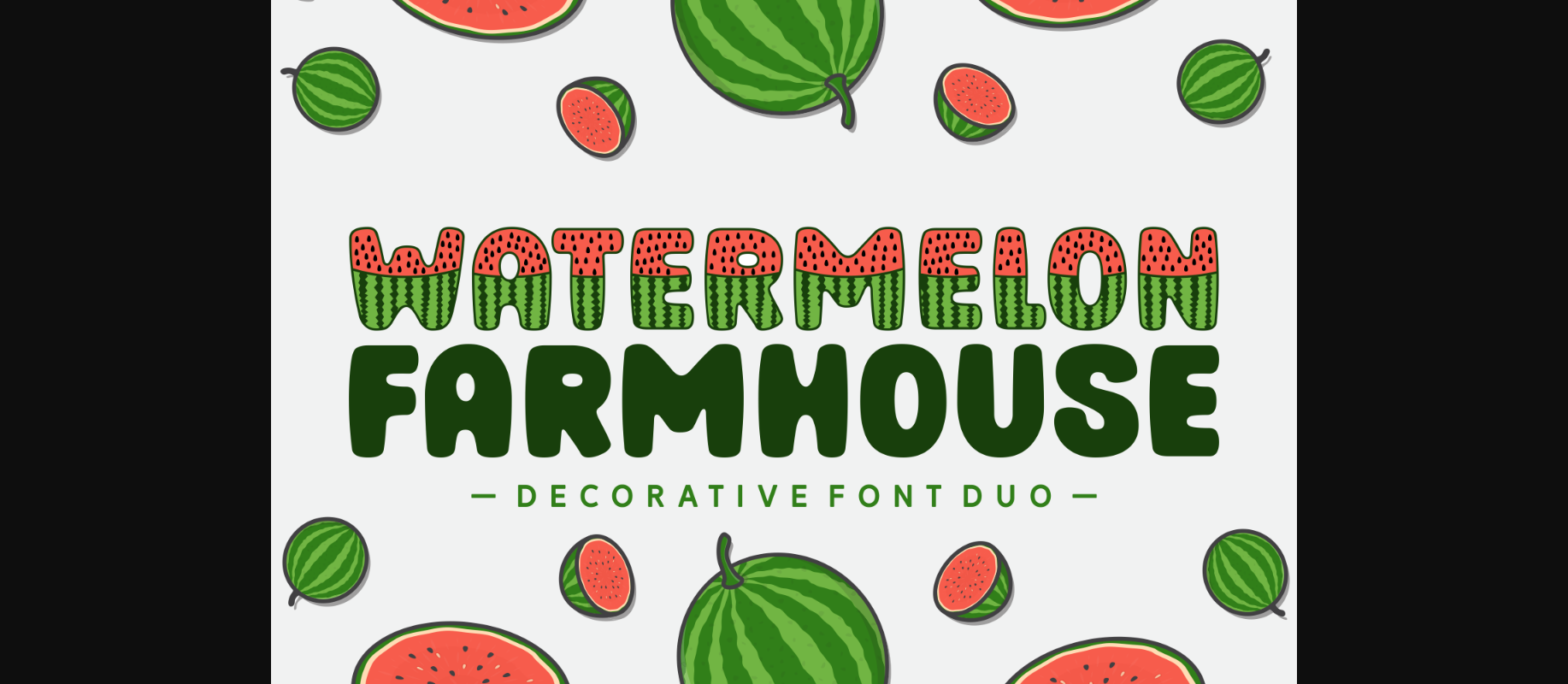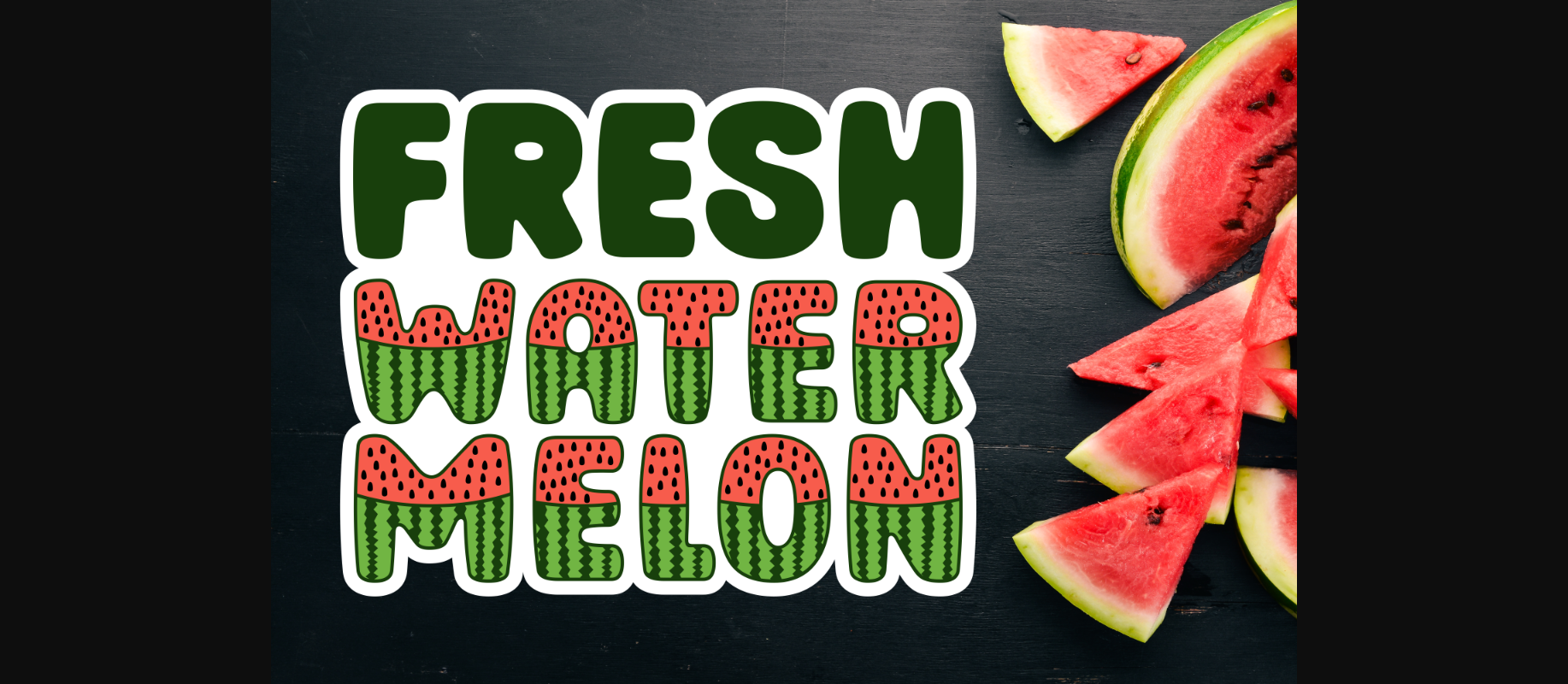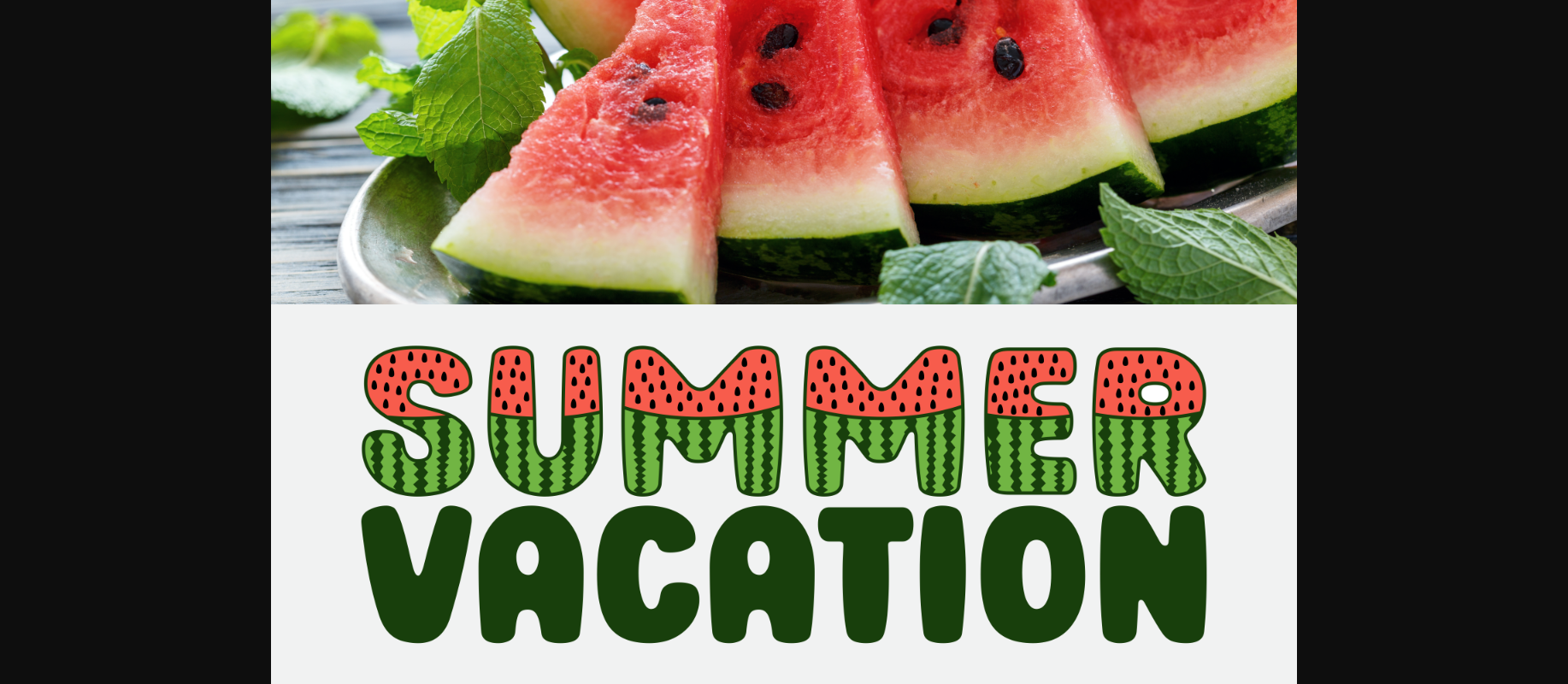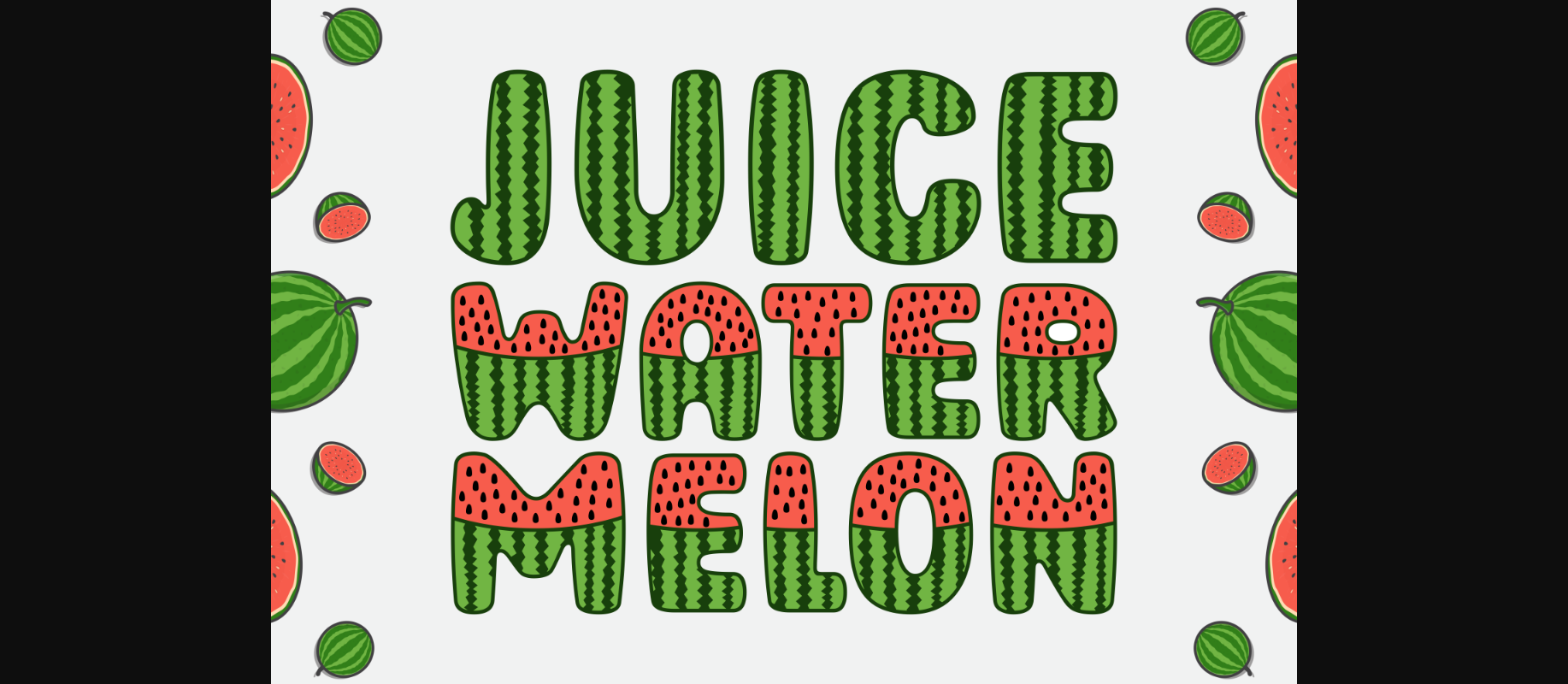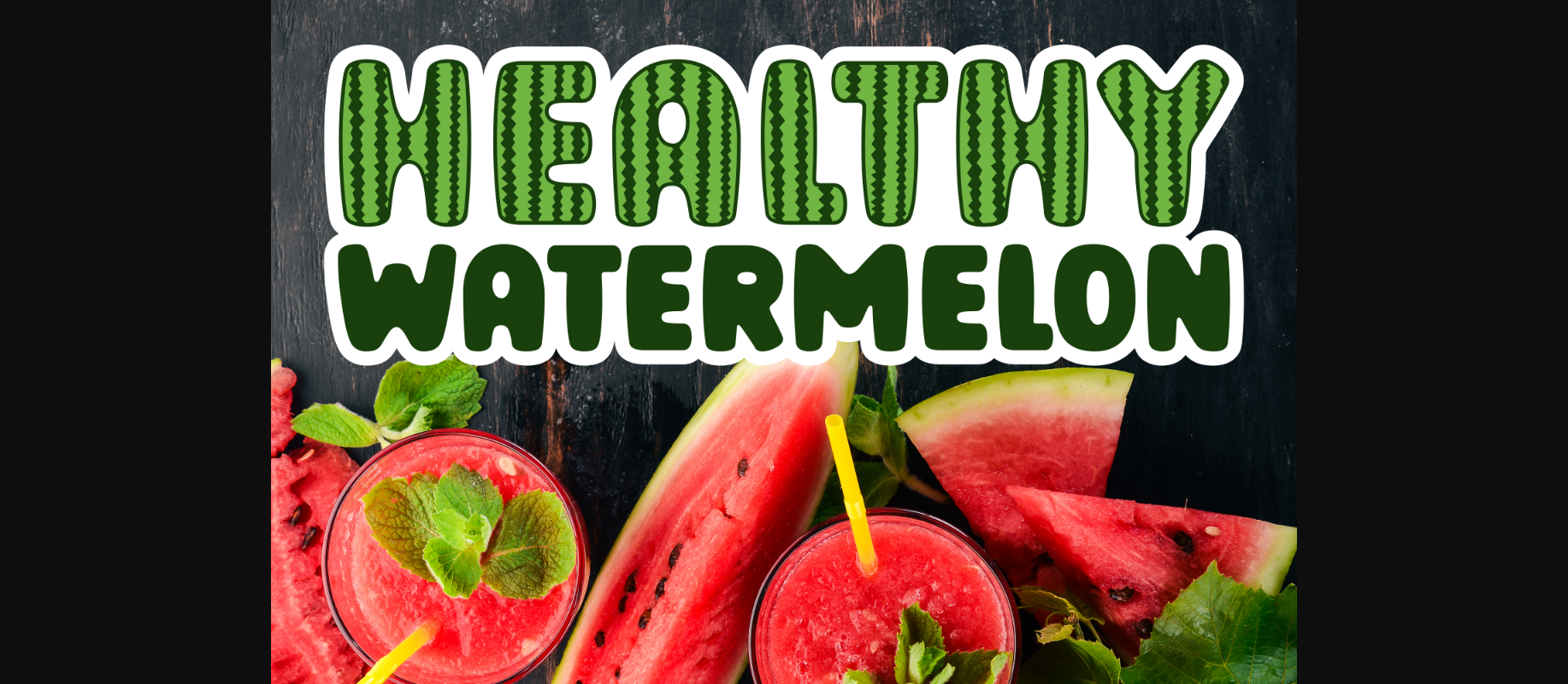
HomeDecorative FontsWatermelon Farmhouse Font Decorative Fonts Watermelon Farmhouse Font FacebookXPinterestWhatsApp 1 of 7 ... Watermelon Farmhouse Font Poster 2... Watermelon Farmhouse Font Poster 3... Watermelon Farmhouse Font Poster 4... Watermelon Farmhouse Font Poster 5... Watermelon Farmhouse Font Poster 6... Watermelon Farmhouse Font Poster 7... About Watermelon Farmhouse Font Watermelon Farmhouse is a modern and unique decorative font. Its bold lines and eye-catching curves give it a distinctive look that stands out from the crowd. DOWNLOAD NOW People also explored Fresh Love Font Winter Dress Font Sandy Antoniuss Font Tooth Fairy Font Happykids Font Creatoon Font Aesthetis Font Hello There Font Brightsy Font 315 0 TagsWatermelon Farmhouse Font Previous articleDiary Sovia FontNext articleElfrida Bright Font LEAVE A REPLY Cancel reply Comment: Please enter your comment! Name:* Please enter your name here Email:* You have entered an incorrect email address! Please enter your email address here Website: Save my name, email, and website in this browser for the next time I comment. Personal Use Free Unispace Personal Use Free Read more about this font Blue Highway Personal Use Free Read more about this font Klotee Personal Use Free Read more about this font Abuget Free Script Personal Use Free Read more about this font BLOG How to Cut Any Font on Cricut: Convert a Font to SVG (Free) Turn any font into a clean SVG so it cuts crisp on Cricut - a quick 3-step workflow using a free font-to-SVG tool. Transform Your Website: Elevate Your Typography with 7 Best Web Font Generators Best Fonts for YouTube Videos: Make Your Thumbnails Stand Out Modern Sans-Serif Fonts That Brands Love in 2025